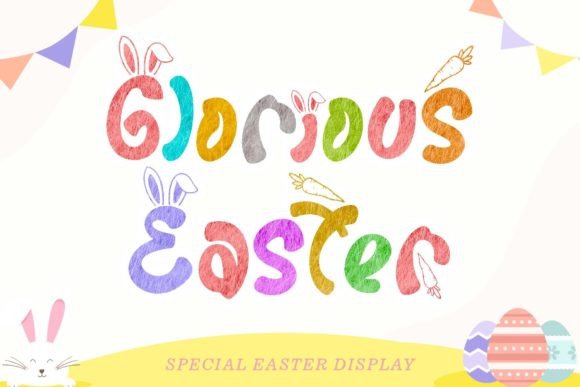
Feast your eyes on the Glorious Easter Font, a display font that is both unique and charmingly adorable. Its Easter-themed design, adorned with cute bunny ears and a carrot, will add a touch of whimsy and delight to your projects.
With the Glorious Easter Font, you have a font that's bursting with personality, perfect for adding a cheerful and festive vibe to your designs. It's perfect for creating eye-catching Easter cards, invitations, posters, social media graphics, and so much more. Let your creativity bloom and bring the magic of Easter to life with this font that's sure to leave a lasting impression.
But wait, there's more! The Glorious Easter Font is also incredibly easy to use. It's PUA encoded, which means you can effortlessly access all the charming glyphs and swashes with just a few clicks. This makes it a breeze to add a touch of Easter magic to your projects, whether you're a seasoned designer or just starting out.